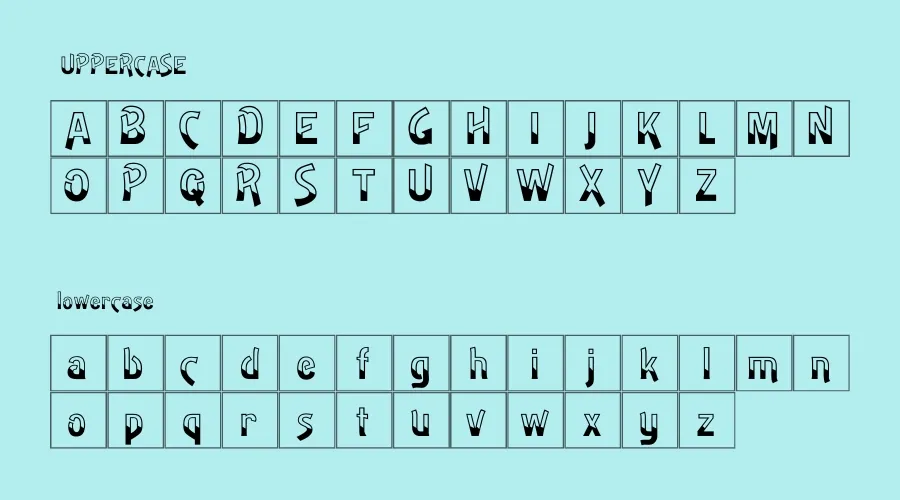
Theater Afisha Font
About Theater Afisha Font
DanX. Solo is the designer of the Theater Afisha Font it belongs to fancy text style category. The arrangement is quite flexible, and the design is clear and contemporary.
Utilize it in your upcoming project. With their huge x-heights and broad letters, small sizes are simple to read. The characters are somewhat compressed, which helps them fit on a screen better.
On many websites, the body text is written for one of the most widely used display fonts. because this typeface was created primarily to be used online.
It is applicable to all websites. This typeface may be used in print designs for magazines, books, and reports. This typeface, which is ranked as a top font on Google Fonts, is used by more than a million of people.